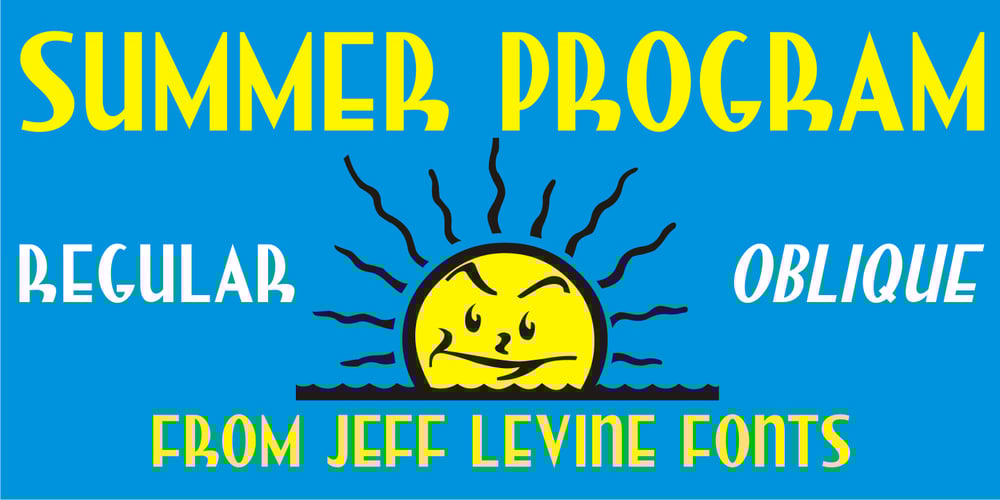
Summer Program JNL Font Family was designed by published by Jeff Levine. Summer Program JNL contains 2 styles and family package options. The WPA (Works Progress Administration) posters on file at the Library of Congress have been a treasure trove of classic hand-lettered type designs. Summer Program JNL is based on one such poster offering free arts and crafts classes in New York City sponsored by the Federal Art Project.